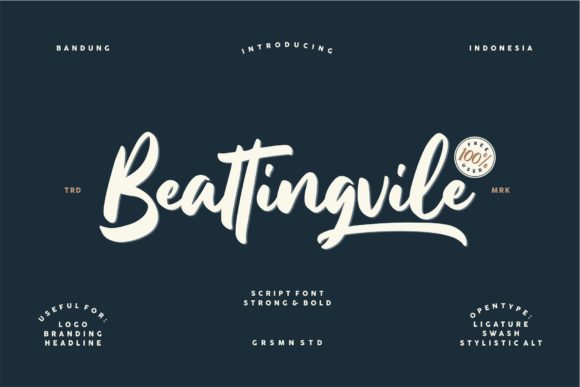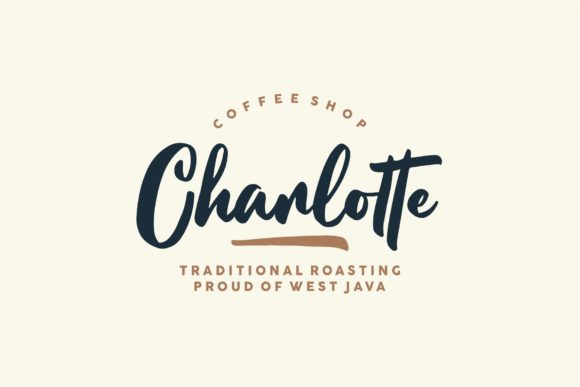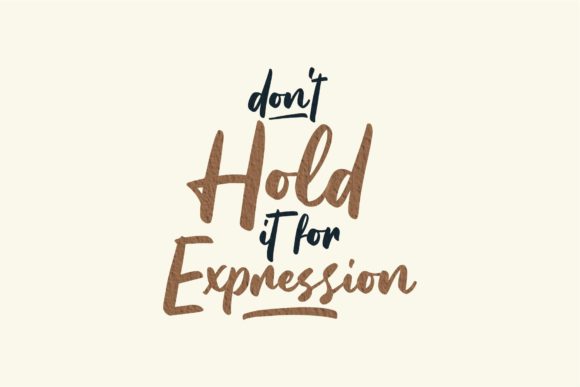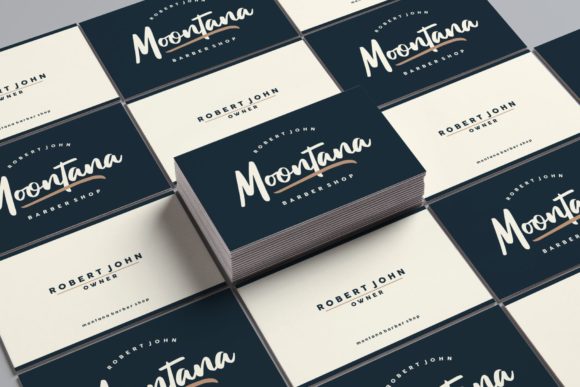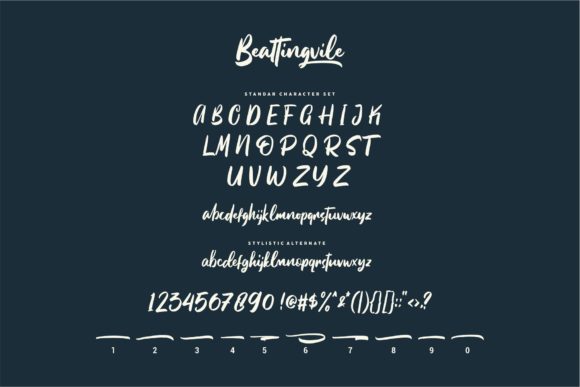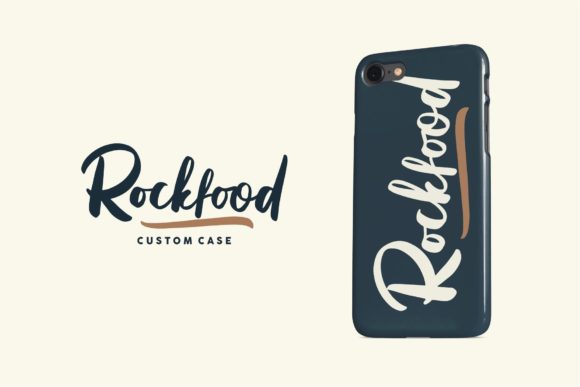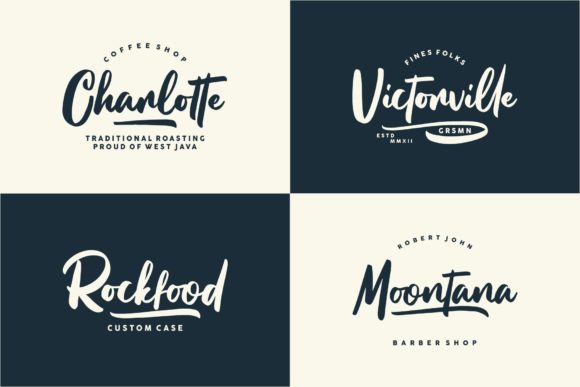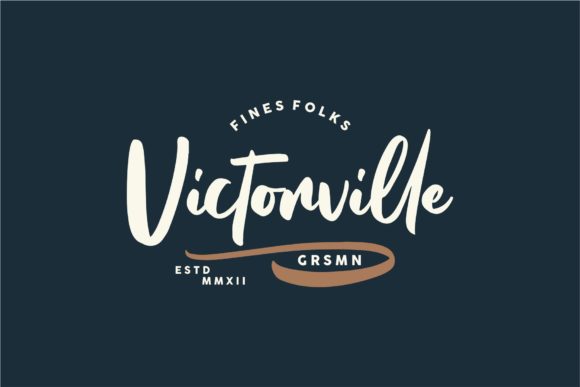
Beattingvile
About Beattingvile Font
Beattingvile looks bold, yet sophisticated and features chunky and extended characters that will look particularly adept when used in logos, branding, packaging design, and much more. This masterfully designed hand-written font is a true must-have!